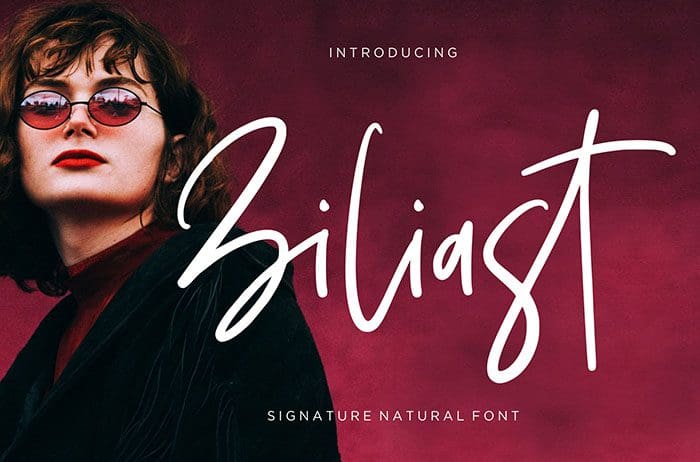
Ziliast Script Font
Ziliast is a script font with a natural swash style. Ziliast perfect for branding projects, product packaging, label, watermark, and more. Thanks to Creatype Studio for sharing this font! Take a look at this portfolio for more of his stunning fonts.